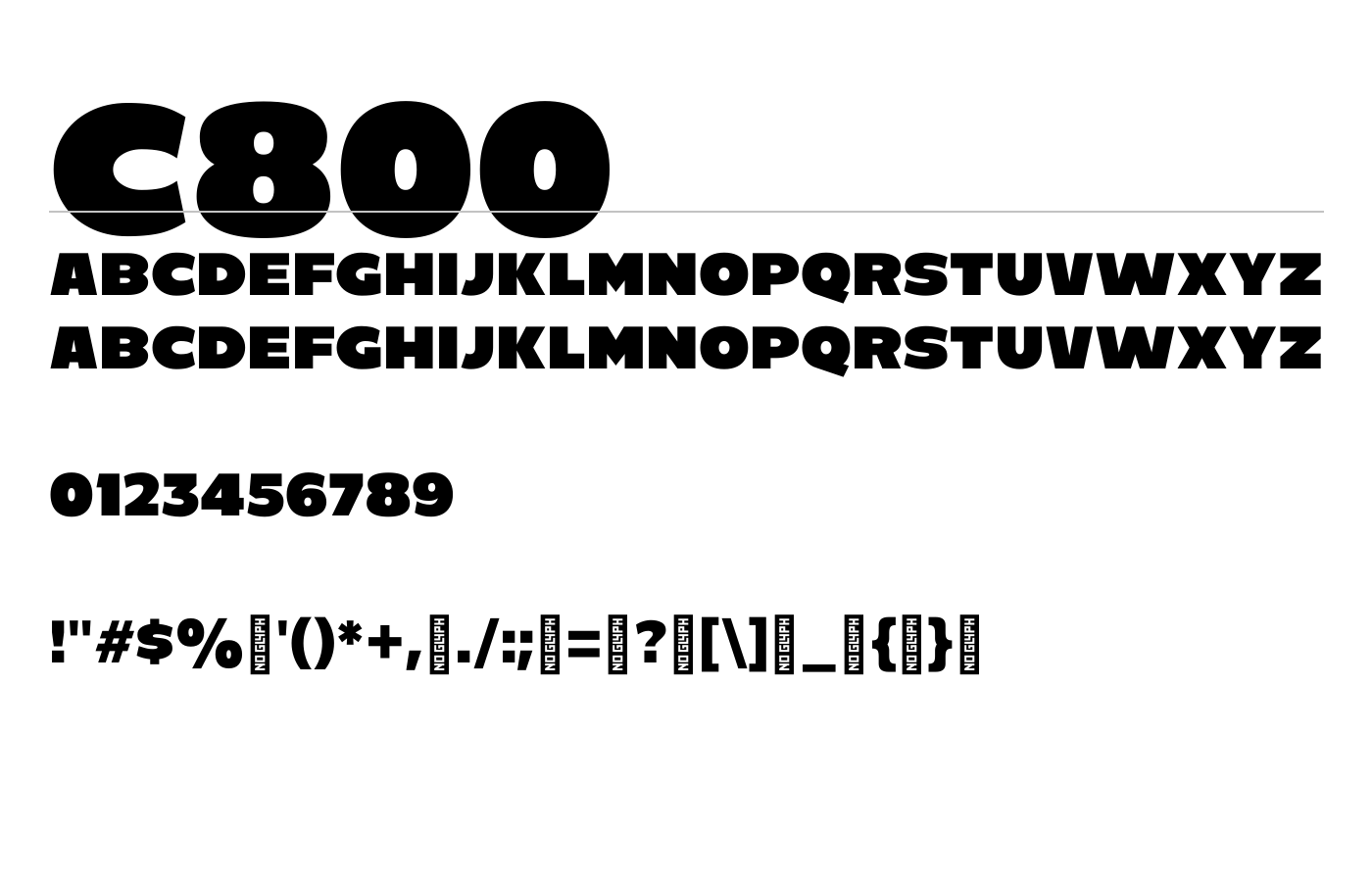
C800 is a bold, heavy sans serif font with wide, rounded letterforms that create a strong and impactful presence. Its thick strokes and geometric shapes give it a modern, playful feel, making it ideal for attention-grabbing headlines, logos, and branding where a confident, contemporary style is desired. This font works best in display settings where its chunky, solid characters can stand out clearly and create a memorable impression.
C800 Font
About C800 Font
| Font family | C800 Font |
| Designer | The Trending Fonts |